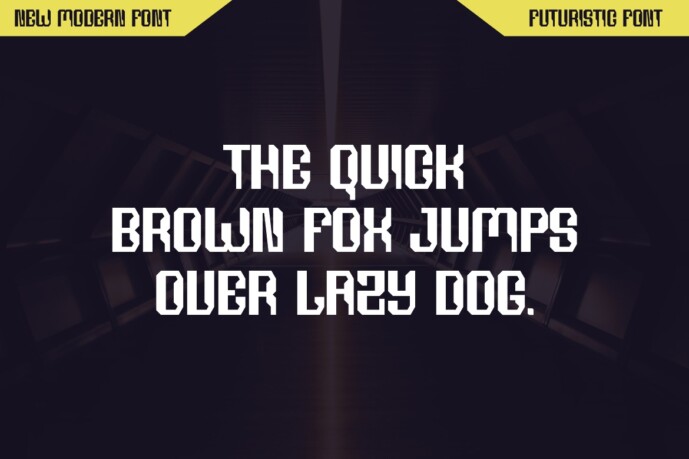
Rotblok 1980s Font
Designer: holadesignstd
Rotblok 1980s Font, Ready to be used for your designs, such as labeling, movie scene, poster, movie title, concerts, album covers, logos and much more.